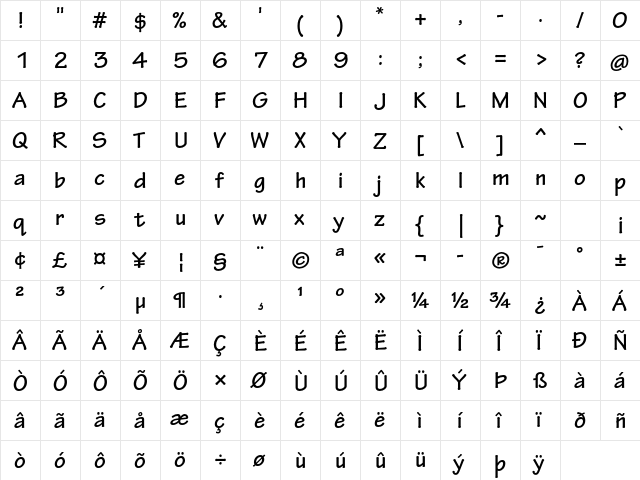
Tekton Pro Bold
| Designer | David Siegel |
Design Context for Tekton Pro Typeface
Tekton Pro takes a measured approach to typography — its balanced proportions and neutral character make it a reliable workhorse for both digital and print work. The heavy weight commands attention and anchors typographic hierarchies.